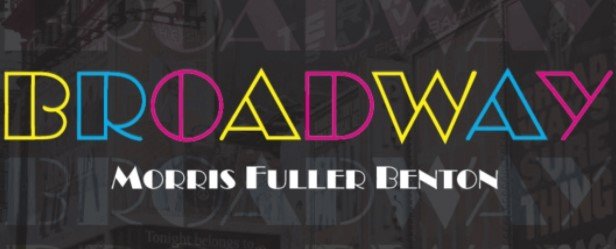
Introducing the Broadway Regular Font This sans-serif typeface was created by ATF in 1927. Morris Fuller Benton was the main designer behind this font, which ATF uses for display purposes.
This is the decorative typeface that comes with archetypal artwork deco typeface this feature work well with the grobold font and both of them are present for free.
There are some features like an extended preliminary run of recognition that was available in this typeface but after 1954 this feature was discontinued now tahoma font contains this feature.
View of Broadway Regular Font
Due to its clean and clean texture, you can easily use this great font for brand designs, cloth printing, official cards, precise emblems, and so on.
What Type of Font Is Broadway Regular?
Broadway Regular is the sans-serif typeface designed by Morris Fuller Benton and released in the year of 1927 for the ATF
What’s the Closest Font to Broadway Regular?
The Manbow font is very close to the Broadway Regular font.